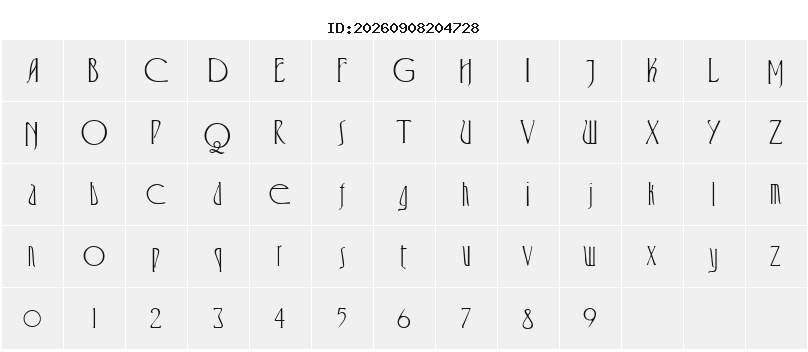
Virginia Preview
• Font Name: Virginia
• Full Font Name: Virginia
• PostScript Name: Virginia
About Virginia.ttf
Virginia.ttf is a modern, elegant sans-serif font designed for ultimate readability and visual harmony. Perfect for branding, headlines, web design, and print materials.